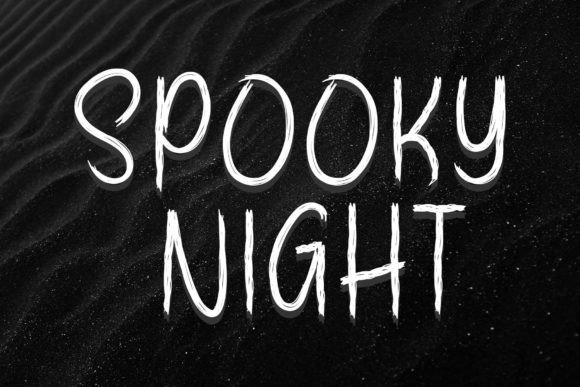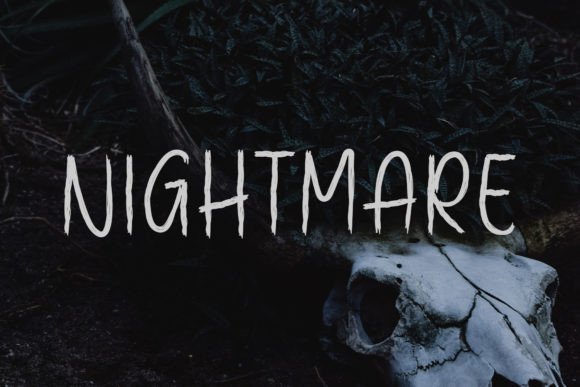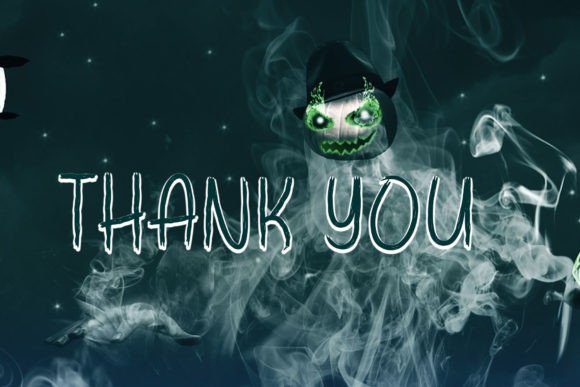
Unveiling the Spooky Charm of Halloween History Font
As the spookiest time of the year approaches, designers and crafters are on the lookout for fonts that capture the essence of Halloween. If you’re searching for a font that embodies the spirit of the season, look no further than the Halloween History Font. This cool and modern handwritten font is perfect for adding a touch of eerie elegance to your crafts, digital designs, presentations, and greeting cards.
The Origins of Halloween History Font
The Halloween History Font is a unique and creative typeface designed to evoke the mystery and intrigue of the Halloween season. Its origins may not be steeped in tradition, but its impact is undeniable. This font is the brainchild of talented designers who sought to create a typeface that would be both versatile and visually appealing.
What Makes Halloween History Font So Special?
So, what sets Halloween History Font apart from other fonts? Here are a few reasons why this font has become a favorite among designers and crafters:
- Handwritten Charm: The Halloween History Font boasts a beautiful, handwritten style that adds a personal touch to any project. Its organic feel makes it perfect for creating unique and eye-catching designs.
- Modern Twist: This font combines traditional Halloween elements with a modern twist, making it ideal for designers who want to create contemporary and stylish designs.
- Versatility: Whether you’re working on a craft project, digital design, presentation, or greeting card, the Halloween History Font is the perfect choice. Its versatility ensures that it will be your go-to font for various occasions.
Using Halloween History Font in Your Designs
The Halloween History Font is incredibly easy to use, making it accessible to designers and crafters of all skill levels. Here are some ideas for incorporating this font into your projects:
- Crafts: Add a spooky touch to your Halloween crafts, such as party decorations, gift tags, and DIY cards.
- Digital Design: Use the Halloween History Font in your digital designs, including social media graphics, blog posts, and email newsletters.
- Presentations: Create engaging and informative presentations for Halloween-themed events or parties.
- Greeting Cards: Design unique and personalized greeting cards for friends and family.
Tips for Getting the Most Out of Halloween History Font
To maximize the potential of the Halloween History Font, consider the following tips:
- Experiment with Colors: Pair the font with a range of colors to create different moods and effects. Traditional Halloween colors like orange, black, and purple work well, but feel free to get creative!
- Mix and Match: Combine the Halloween History Font with other fonts to create visually appealing contrasts and add depth to your designs.
- Play with Textures: Add textures and patterns to your designs to give them a more organic and tactile feel.